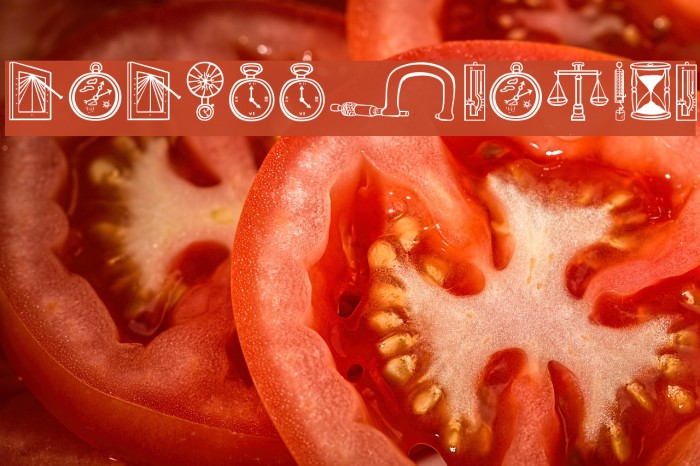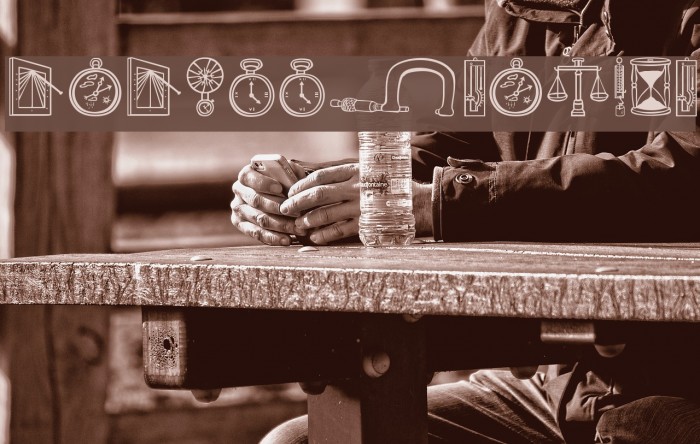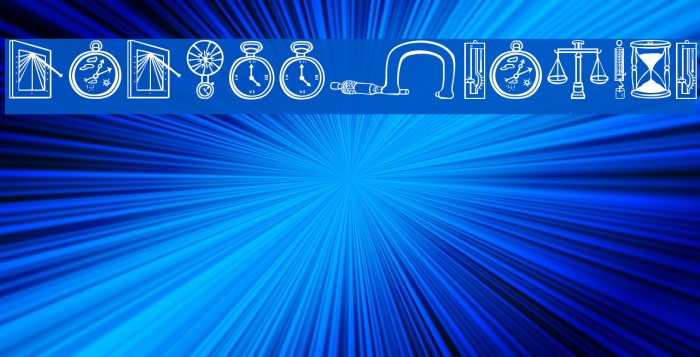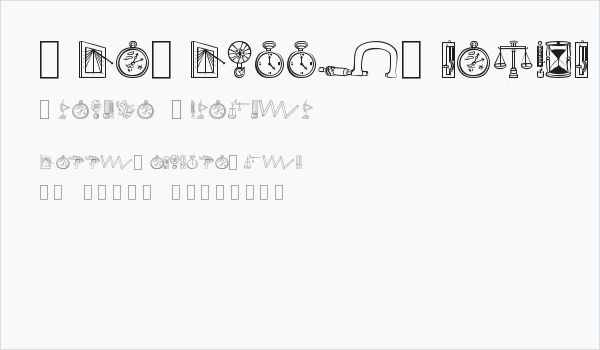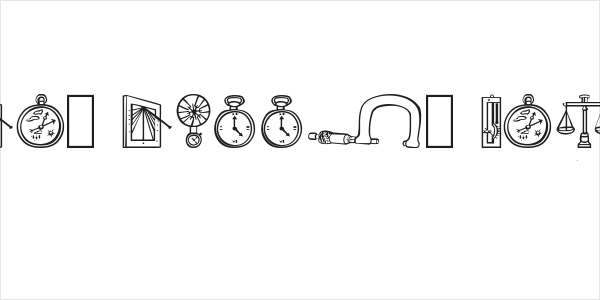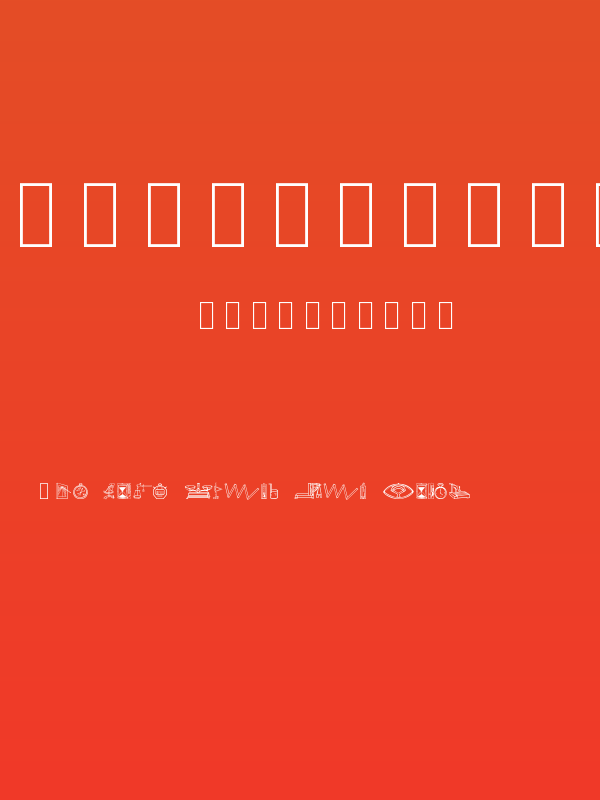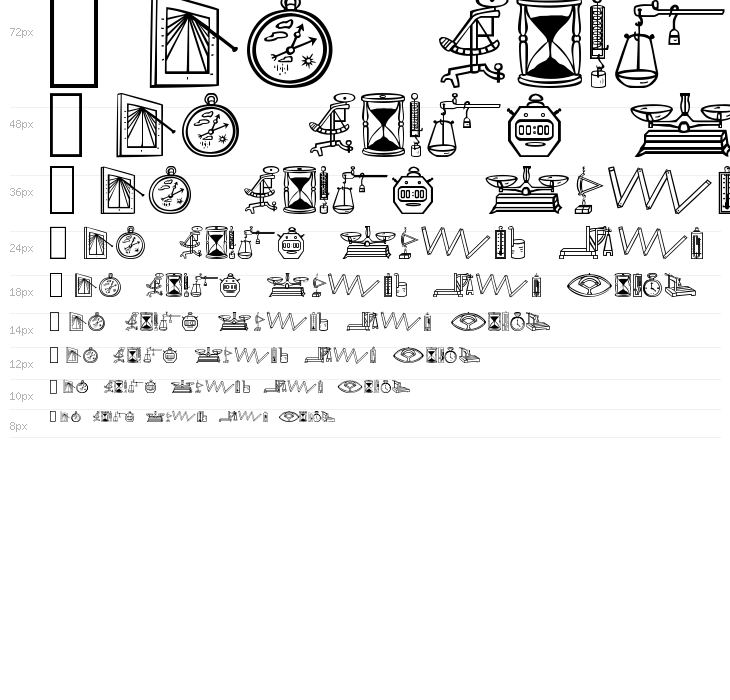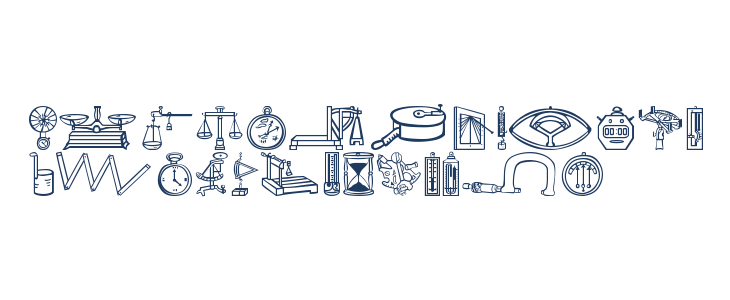
The-happy-medium Font
The-happy-medium Description
A decorative font composed of detailed scientific and laboratory equipment illustrations representing each character, with clear outlines and a hand-drawn, technical sketch style.
| Overall Style | Decorative, Educational, Thematic |
| Use Case | Logos, Headlines, Themed graphics |
| Proposed Projects | Educational posters, science fair materials, STEM event branding, children's science books, themed invitations. |